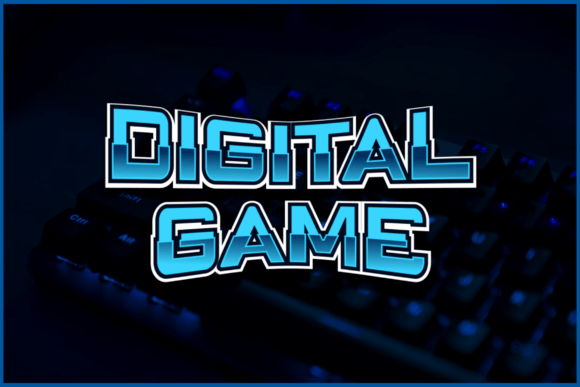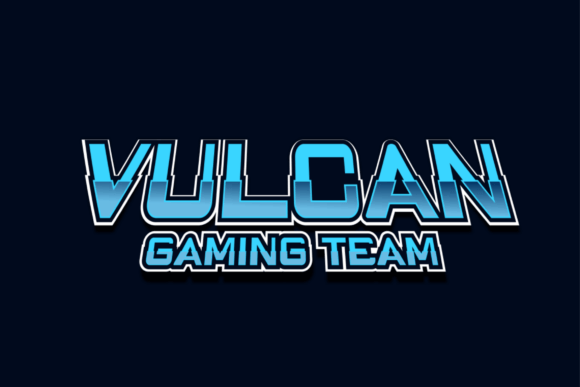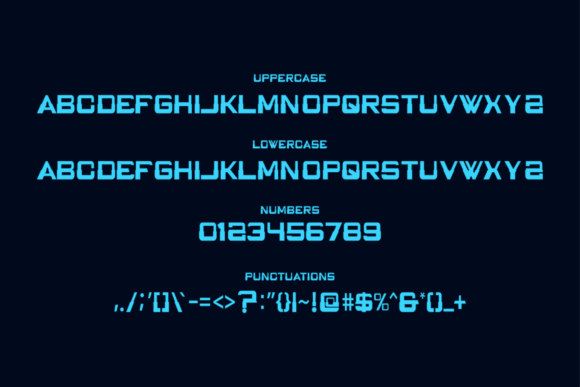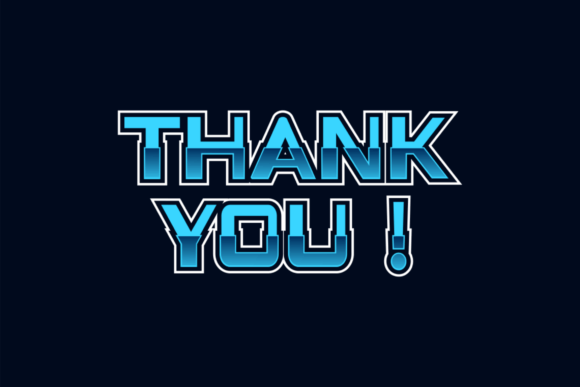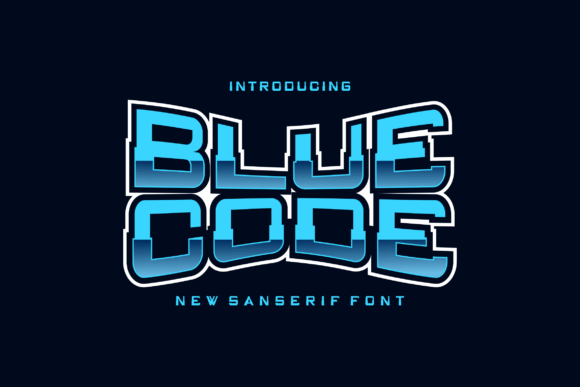
Introducing Bluecode Font: The Modern, Bold, and Authentic Display Font for Your Branding Projects
In the world of design, fonts play a crucial role in creating a lasting impression. A well-chosen font can elevate your brand’s identity and make it stand out from the crowd. If you’re a designer or crafter looking for a modern, bold, and authentic display font, look no further than Bluecode Font. This versatile font is suitable for a wide range of branding projects, including logos, t-shirt printing, exports, and more.
What Makes Bluecode Font Stand Out?
Bluecode Font is a modern sans-serif font that boasts a bold and authentic style. Its clean lines, precise curves, and geometric shape make it perfect for creating stunning visual content. The font’s unique design ensures that it looks outstanding in a wide range of contexts, from digital platforms to print materials.
Key Features of Bluecode Font
- Modern and Bold Design: Bluecode Font features a modern and bold design that is sure to grab attention.
- Authentic Style: The font’s authentic style makes it perfect for creating unique and memorable branding projects.
- Versatile: Bluecode Font is suitable for a wide range of branding projects, including logos, t-shirt printing, exports, and more.
- Clean Lines and Precise Curves: The font’s clean lines and precise curves ensure that it looks great in various contexts.
Use Cases for Bluecode Font
Bluecode Font is an incredibly versatile font that can be used for various branding projects. Here are some use cases:
- Logo Design: Create a stunning logo for your brand using Bluecode Font.
- T-Shirt Printing: Use Bluecode Font to create eye-catching t-shirt designs.
- Exports: Add a professional touch to your exports with Bluecode Font.
- Social Media Graphics: Use Bluecode Font to create engaging social media graphics.
- Advertising Materials: Create bold and attention-grabbing advertising materials with Bluecode Font.
Benefits of Using Bluecode Font
Using Bluecode Font for your branding projects offers several benefits:
- Unique Identity: Bluecode Font helps create a unique identity for your brand.
- Increased Visibility: The font’s bold design ensures that your brand stands out from the crowd.
- Professional Look: Bluecode Font gives your branding projects a professional look.
- Easy to Read: The font’s clean lines and precise curves make it easy to read.
Tips for Using Bluecode Font Effectively
Here are some tips for using Bluecode Font effectively:
- Use it Boldly: Bluecode Font is designed to be bold, so use it to make a statement.
- Experiment with Colors: Try out different colors to find the perfect combination for your brand.
- Pair it with Other Fonts: Experiment with pairing Bluecode Font with other fonts to create a unique look.
Bluecode Font is a modern, bold, and authentic display font that is perfect for branding projects. Its unique design, clean lines, and precise curves make it stand out in various contexts. With its versatility and ease of use, Bluecode Font is an excellent choice for designers and crafters looking to create stunning visual content. Whether you’re creating a logo, t-shirt design, or export materials, Bluecode Font is sure to elevate your brand’s identity and make it shine.